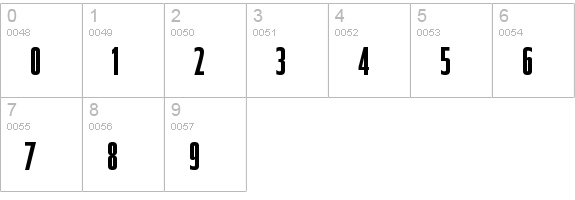
Tasse Medium Cond is a balanced, medium-weight, condensed-width variant in the Tasse typeface family \xE2\x80\x94 well suited to sub-headlines, navigation, and balanced editorial work.
Tasse Medium Cond font is an elegant and versatile typeface that exudes sophistication and modernity. Its clean and streamlined design makes it ideal for a wide range of design projects, from branding and advertising to editorial and web design. With its medium condensed proportions, Tasse Medium Cond font strikes the perfect balance between legibility and space-saving efficiency. It is highly readable even at smaller sizes, making it an excellent choice for body text or captions. The distinctive letterforms of Tasse Medium Cond font feature a harmonious blend of sharp edges and gentle curves, creating a visually pleasing and balanced aesthetic. Its timeless appeal ensures that it will remain relevant and stylish for years to come. One of the best things about Tasse Medium Cond font is that it is available for free download at FontsMarket.com. This means that you can enjoy the benefits of this exceptional typeface without any cost. Whether you are a professional designer or a hobbyist, having access to a high-quality font like Tasse Medium Cond for free is a valuable resource. So, if you are looking for a versatile and visually appealing font that is both elegant and legible, look no further than Tasse Medium Cond. Download it for free at FontsMarket.com and elevate your design projects to new heights.